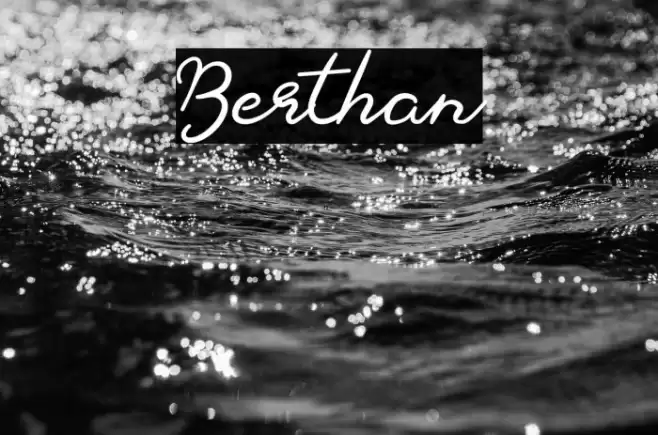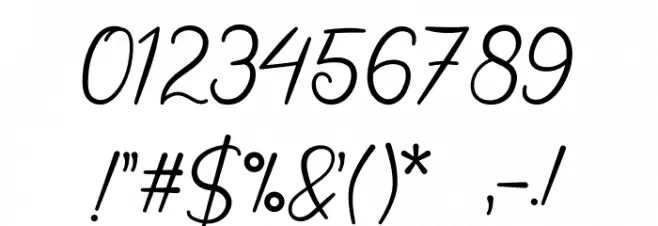
Berthan Font
Berthan Description
This font exudes a classic and elegant script style, characterized by its flowing, cursive letterforms. The uppercase letters are bold and slightly slanted, giving a sense of movement and grace. The lowercase letters maintain a consistent flow, with smooth connections between each character, enhancing readability. The numerals are clear and distinct, matching the overall cursive style. Special characters are well-integrated, maintaining the font's cohesive aesthetic. This font is ideal for projects that require a touch of sophistication and elegance.
A classic and elegant cursive script font with flowing letterforms from Regular fonts.
- Proposed Projects: Ideal for wedding invitations, elegant branding, greeting cards, and sophisticated logos.
- Overall Style: Classic
- Use Case: Logos, Invitations, Branding